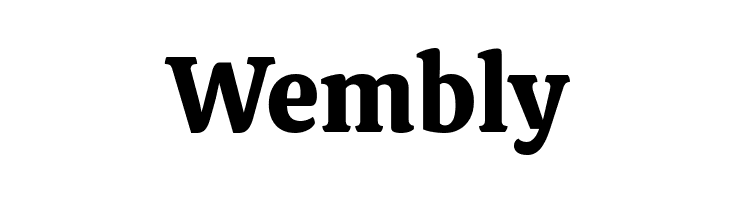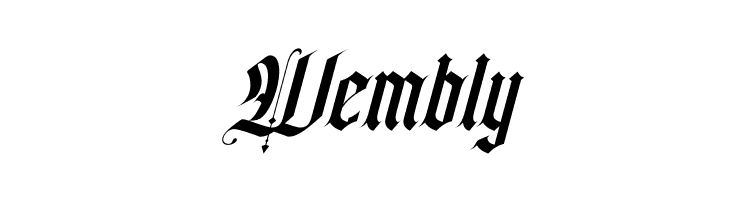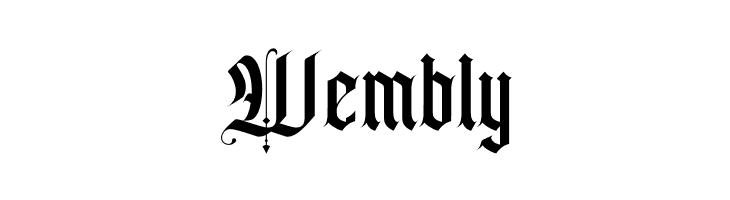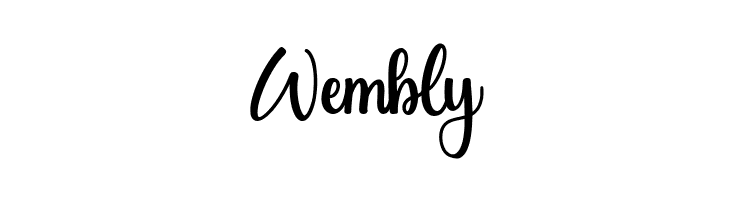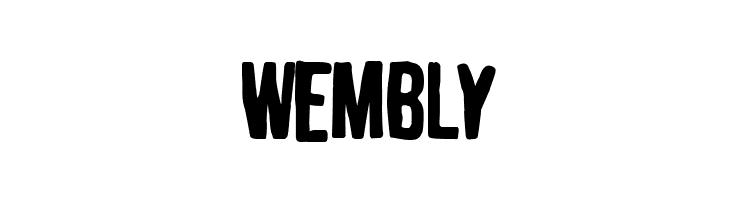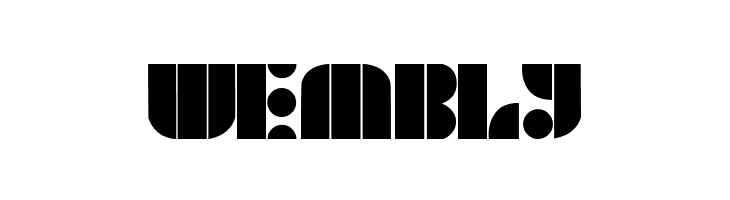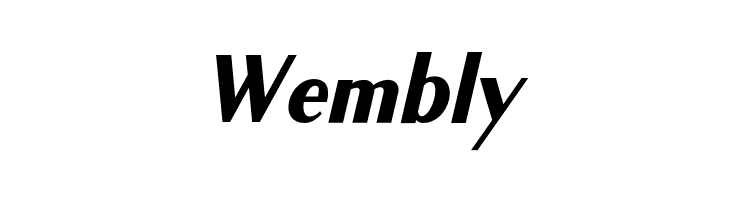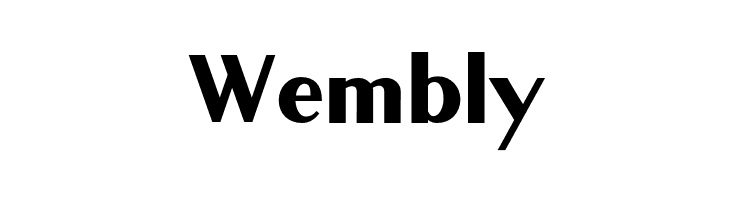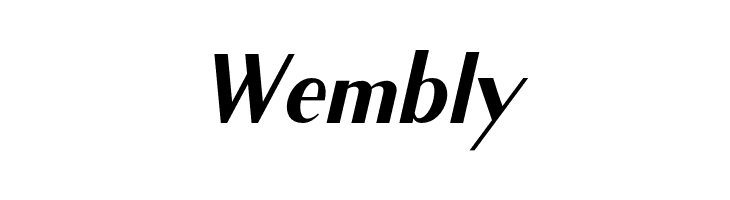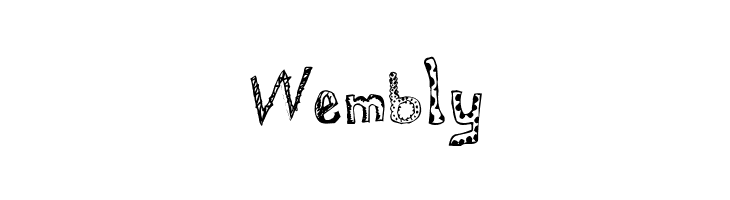
A playful, hand-drawn font with irregular strokes and artistic charm.
An elegant and dynamic italic typeface with moderate contrast and slightly condensed characters.
A modern serif font with bold, elegant curves and high legibility.
A bold, modern serif font with strong, uniform strokes and elegant lowercase letters.
A dynamic semi-bold italic font with a modern and elegant style.
A bold, 3D-effect font with strong shadows and a playful, modern style.
Bold, geometric font with a strong, modern presence.
A modern, geometric font with smooth curves and clear readability.
A modern, geometric font with a warm, approachable style.
A bold, playful font with decorative curves and sharp edges.
A lively and flowing script font with elegant curves and smooth connections.
A graceful and flowing script font with elegant, fluid letterforms.
A graceful script font with flowing, connected letters and elegant flourishes.
A bold, italicized font with a strong, modern presence.
A bold, classic serif font with strong, authoritative strokes and excellent readability.
A bold and italic serif font with a dynamic and sophisticated style.
An elegant italic serif font with smooth curves and sharp serifs.
A classic serif typeface with balanced proportions and slight stroke variations for enhanced readability.
A playful, organic font with rounded, irregular shapes and a hand-drawn feel.
A bold, geometric font with circular and semi-circular elements.
A classic blackletter font with ornate, gothic elements and bold strokes.
A modern blackletter font with italic slant and intricate detailing.
A bold, blackletter-style font with high contrast and ornate details.
A bold, geometric font with sharp angles and a modern aesthetic.
A playful, hand-drawn font with irregular, whimsical characters.
A flowing, cursive font with elegant loops and swashes, offering a sophisticated and artistic look.
A bold, serif font with strong strokes and a classic, impactful design.
A bold, decorative font with a distressed, artistic texture.
A playful, casual handwritten font with a dynamic and informal style.
A playful, handwritten cursive font with a casual and energetic style.
A bold, playful font with a hand-drawn, dynamic style.